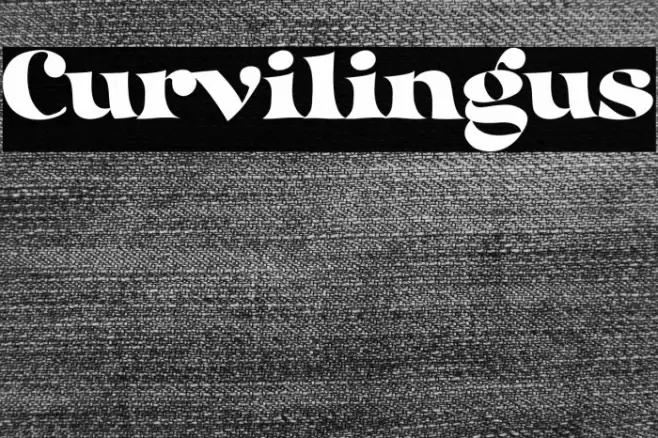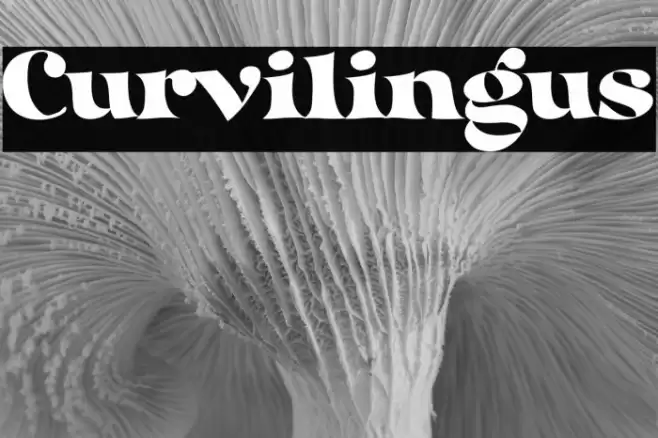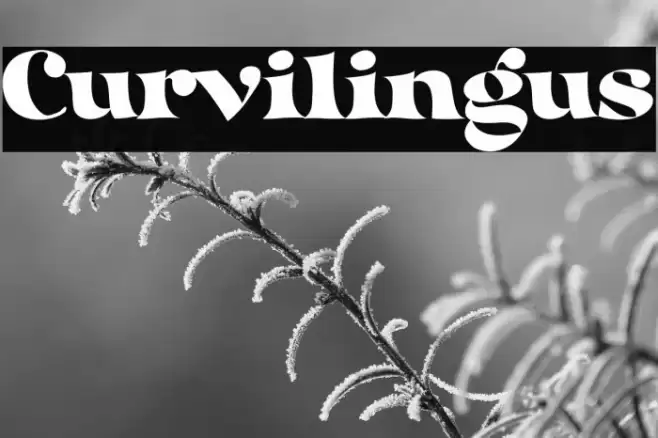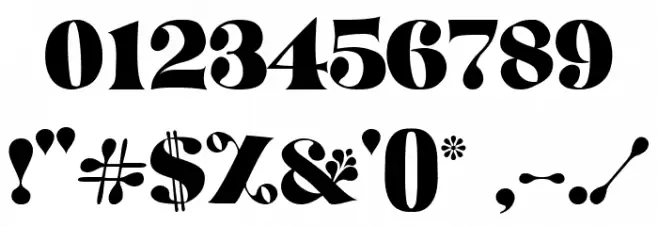
Curvilingus Font
Curvilingus Description
This font features a bold and dramatic style with high contrast between thick and thin strokes. The characters are highly stylized, incorporating unique curves and flourishes that give it a distinctive, artistic flair. The uppercase letters are particularly striking, with exaggerated serifs and sweeping lines that create a sense of movement. The lowercase letters maintain this dynamic style, offering a cohesive look across the typeface. Numbers and special characters are equally ornate, making this font suitable for creative and decorative purposes.
A bold, high-contrast font with dramatic curves and artistic flourishes from Uncategorized fonts.
- Font: Curvilingus
- Proposed Projects: Ideal for branding, poster design, album covers, and any project requiring a bold, artistic touch.